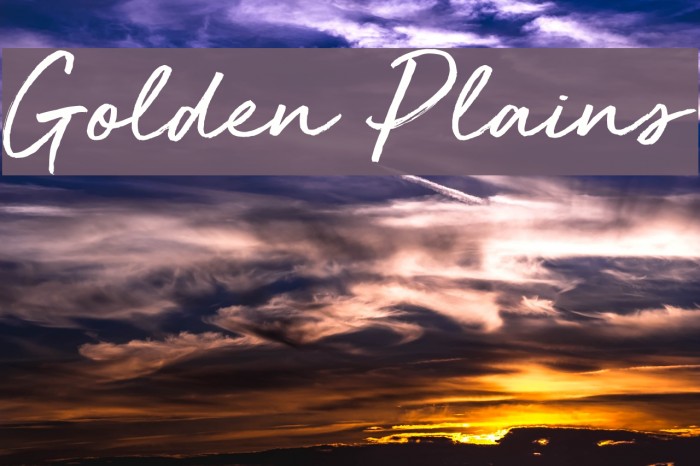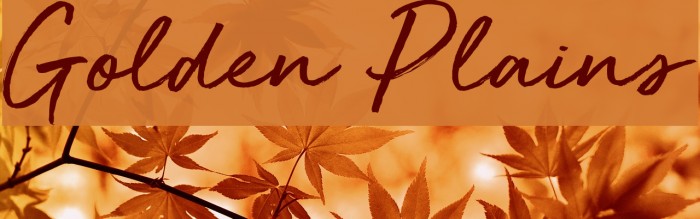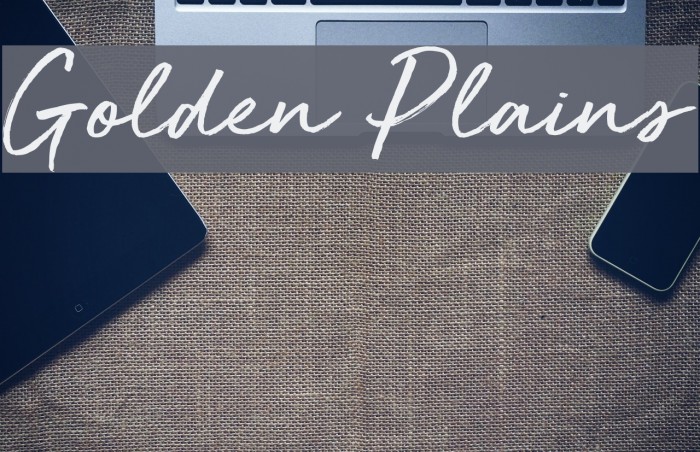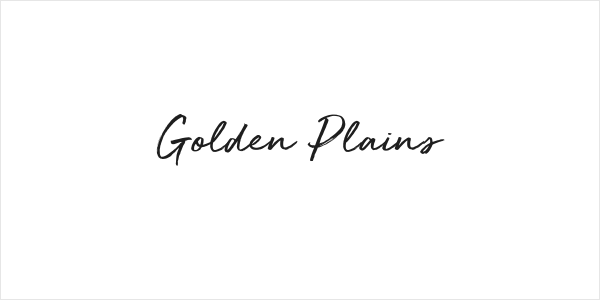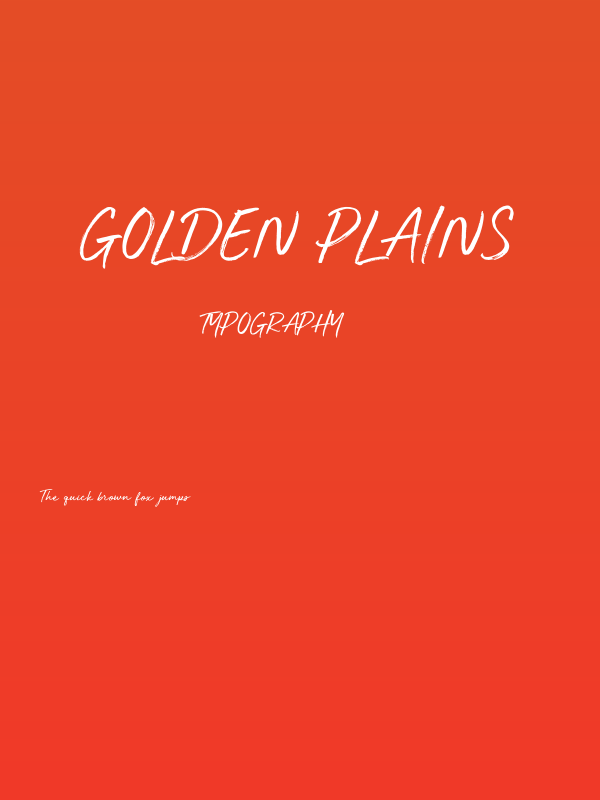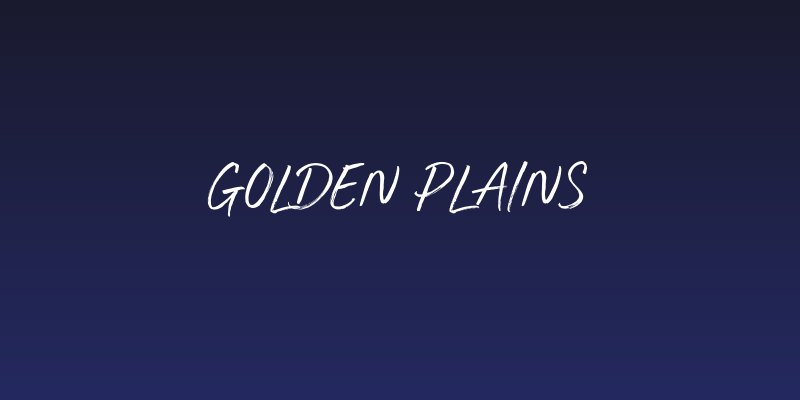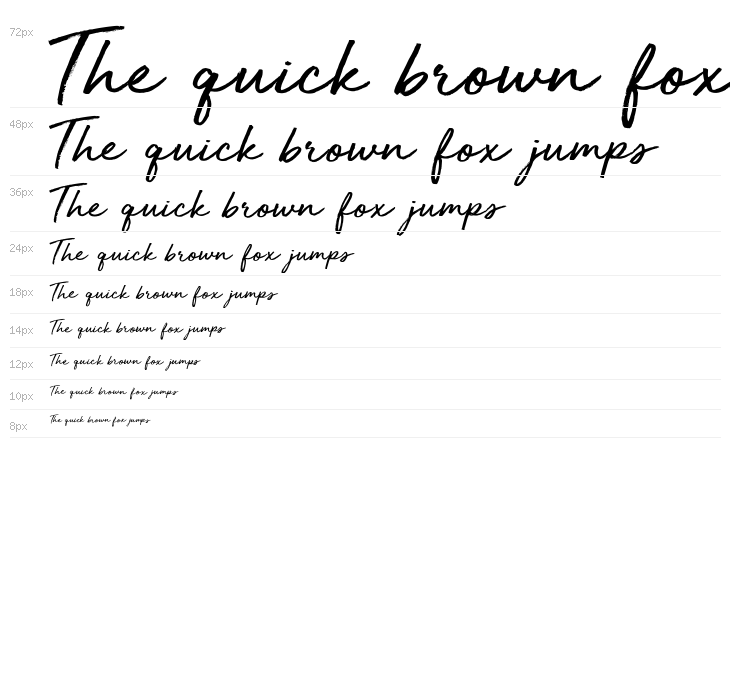
Golden Plains Font
Golden Plains Description
This font features a dynamic and expressive handwritten style, characterized by its fluid strokes and natural flow. The letters have a slightly rough texture, giving them an authentic, hand-drawn appearance. The uppercase and lowercase letters maintain a consistent style, with a slight slant that adds to the casual and approachable feel. The numerals are well-integrated, matching the overall aesthetic with their balanced proportions. This font is versatile, suitable for projects that require a personal touch or a creative flair.
| Overall Style | Casual, Creative |
| Proposed Projects | Ideal for greeting cards, invitations, personal branding, and creative projects that require a personal touch. |